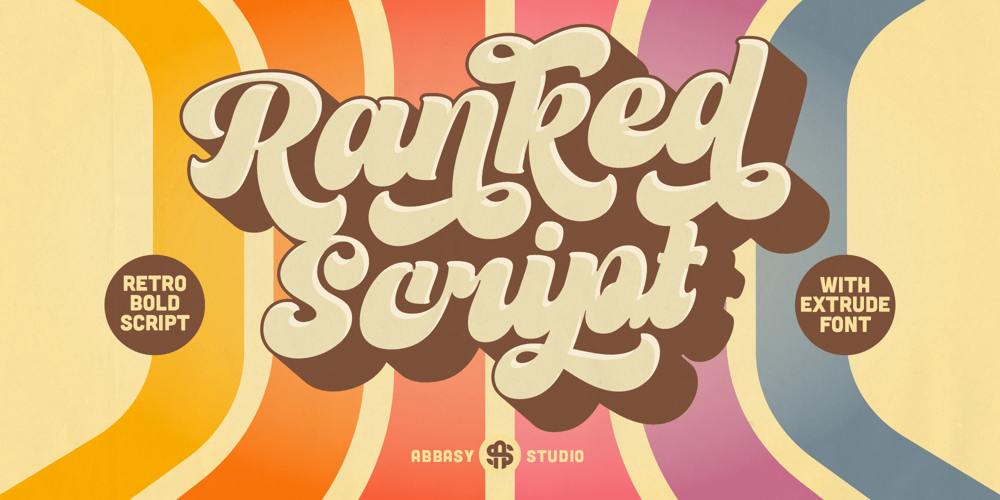
Ranked Script Font Family was designed by Angga Kristiandri and published by Abbasy Studio. Ranked Script contains 2 styles and family package options. Introducing Ranked Script, A Retro Bold Script font. It was inspired by retro typography designs in 70’s. There are more than 504 glyphs in this font including Multilanguage Support. OpenType features with Stylistic Alternates, Contextual Alternate and ligatures in some characters that allows you to mix and match pairs of letters to fit your design. Ranked Script also comes with Extrude Font version, so you can create your retro effect font in ease.Ranked Script is perfectly suitable for made to be applied especially in logo, and the other various formal forms such as invitations, labels, logos, magazines, books, greeting / wedding cards, packaging, fashion, make up, stationery, novels, labels or any type of advertising purpose.